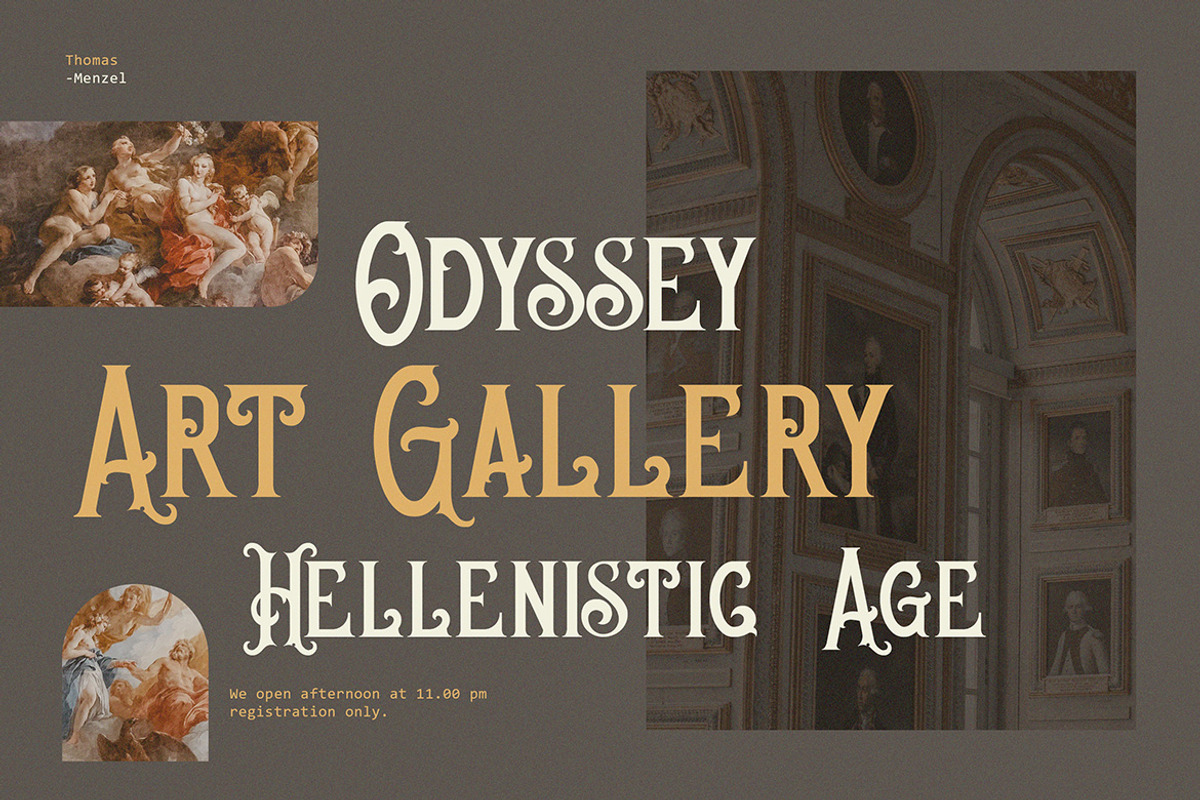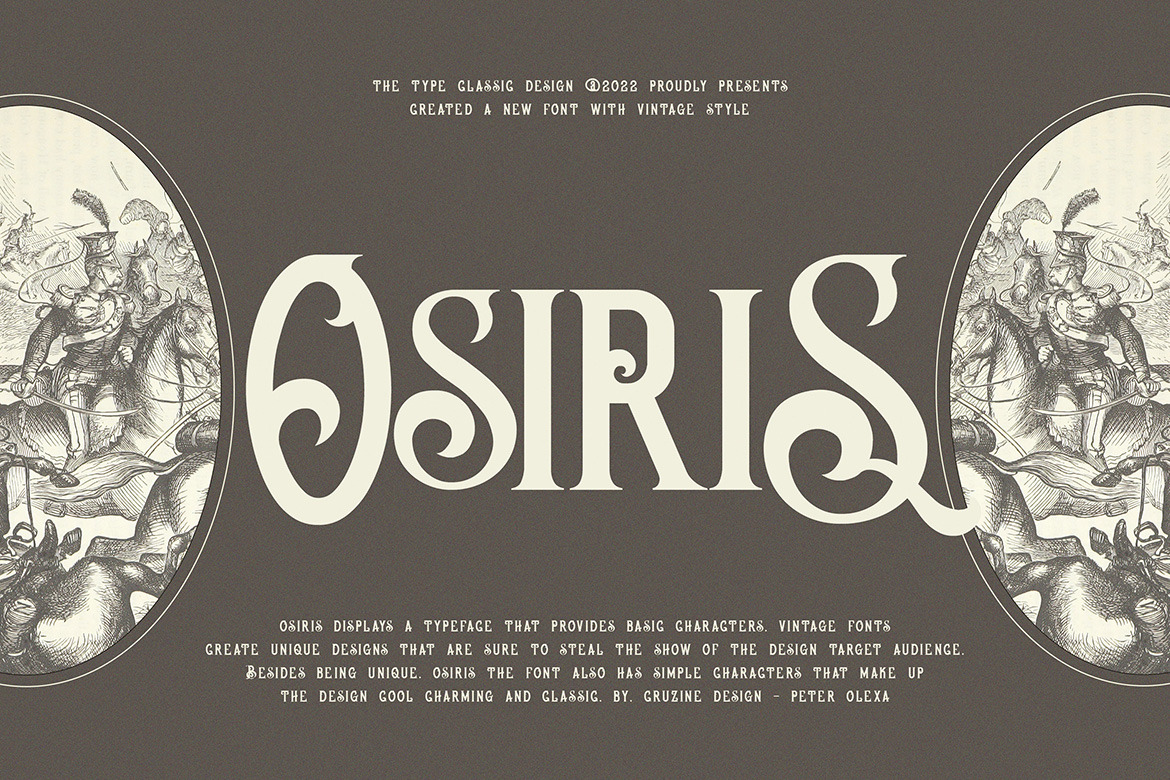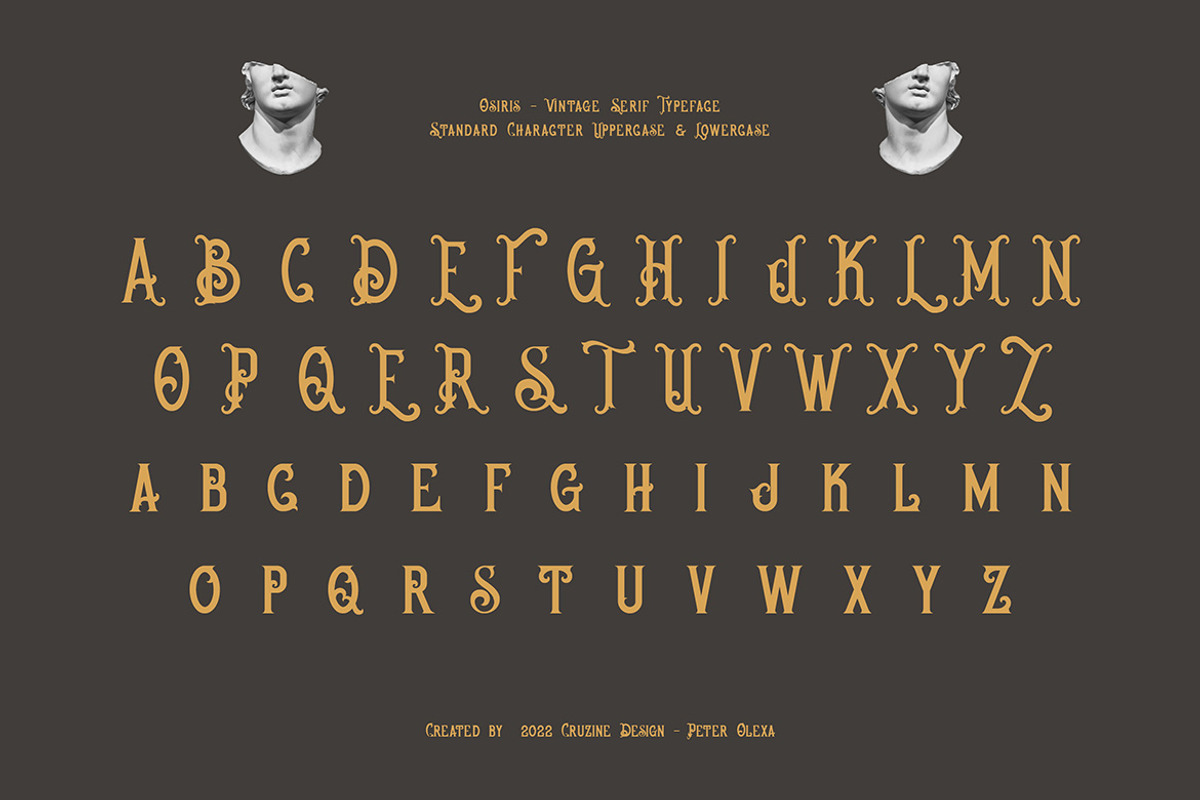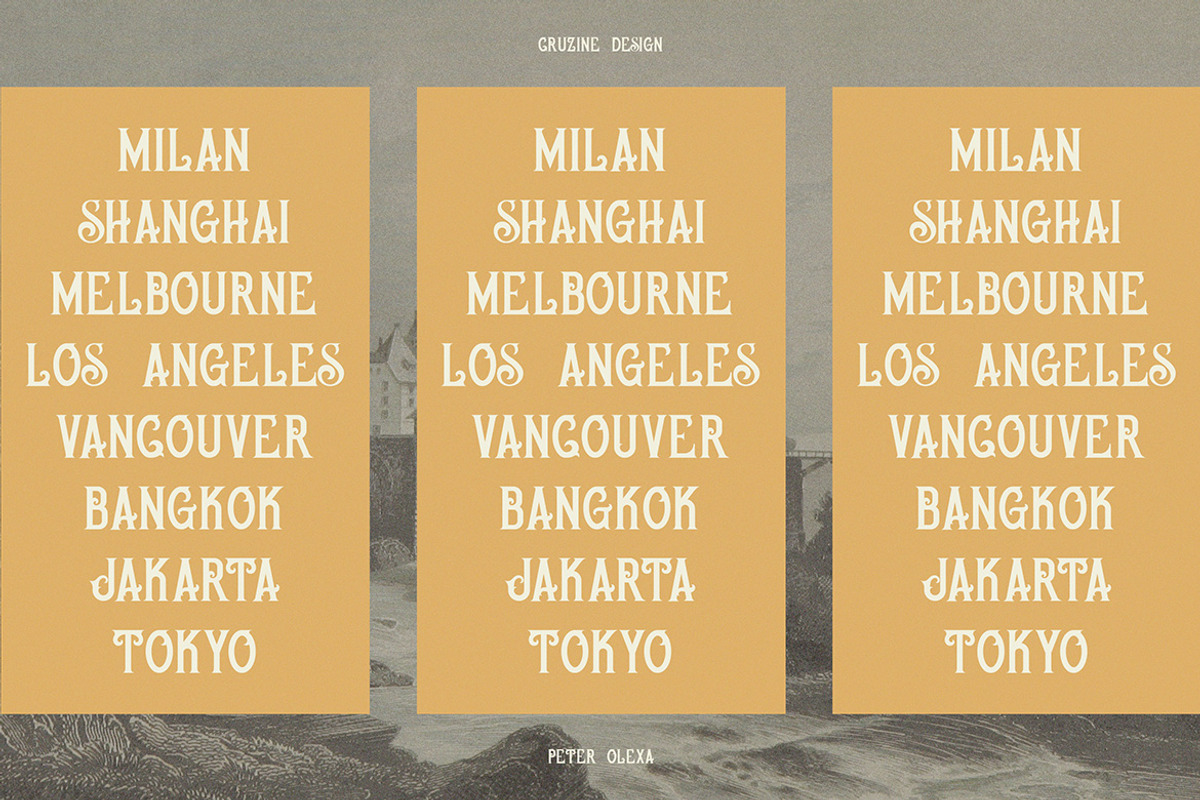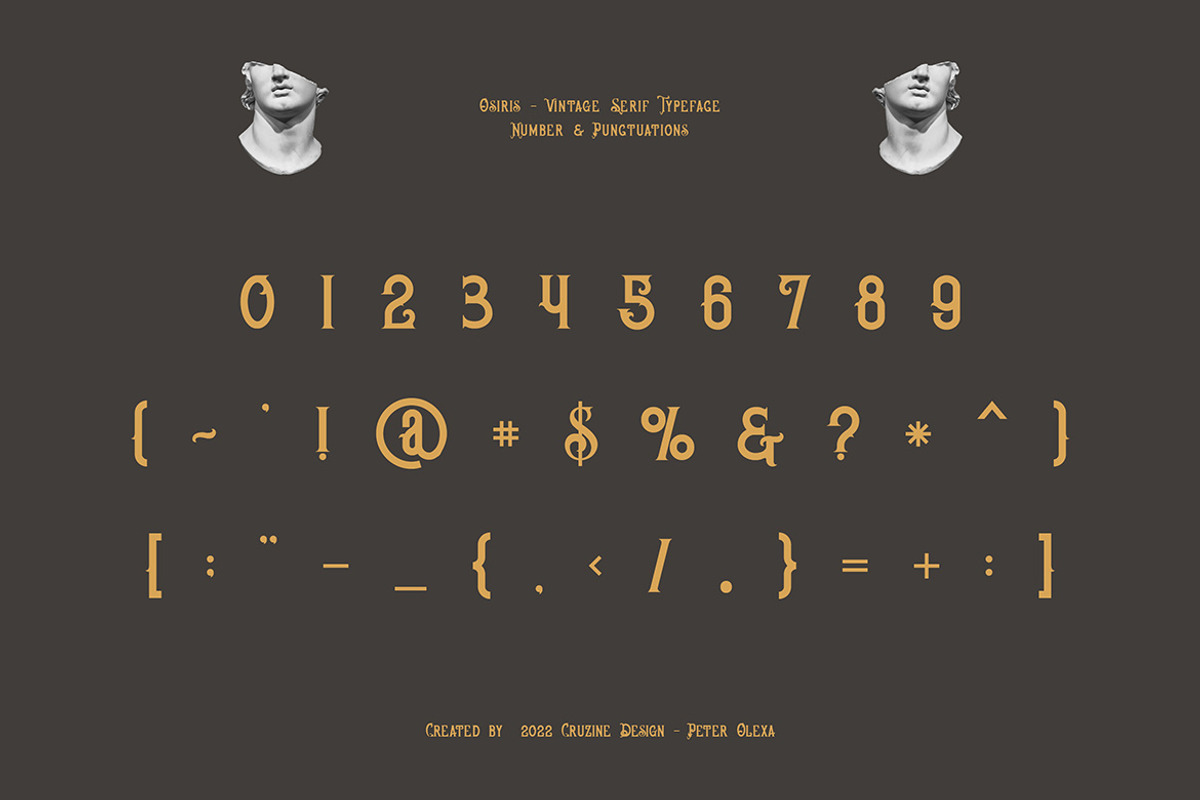
Osiris Vintage Font
Decorative, vintage, retro, artistic & classy serif font. Great for your new logo or branding project.
- Great for retro or vintage style branding projects